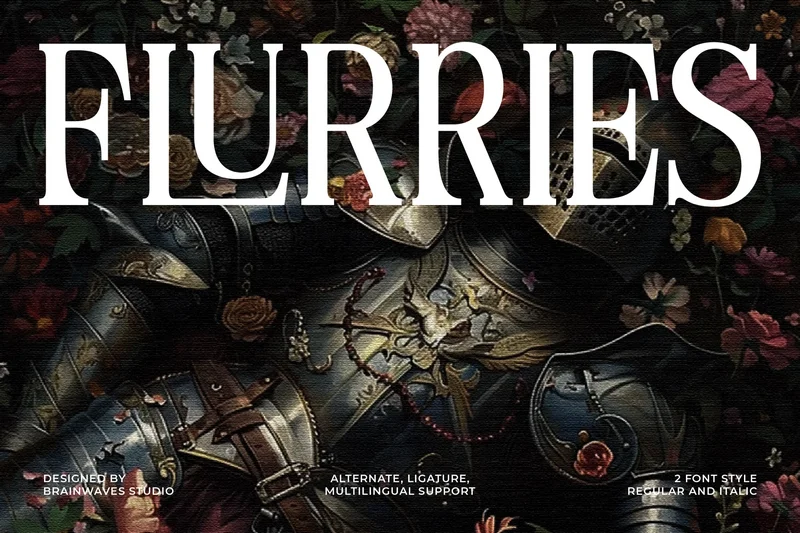
Flurries Serif
Flurries is a modern serif font that strikes the perfect balance between boldness and elegance. Whether you’re designing for luxury brands, creating standout headlines, or adding a unique touch to your logos, Flurries has you covered.
It’s versatile, stylish, and easy to use—perfect for bringing your creative ideas to life. Try Flurries and give your designs that extra edge they deserve!